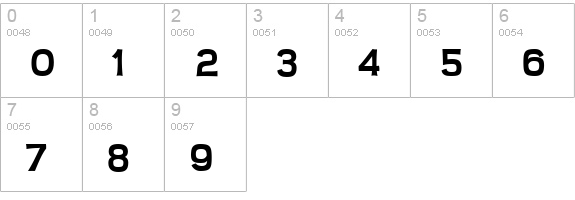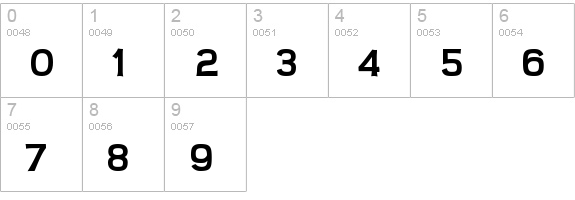
Teen Bold is a strong, high-contrast variant in the Teen typeface family \xE2\x80\x94 well suited to headlines, attention-grabbing titles, and strong calls-to-action.
Introducing Teen Bold, a font that exudes confidence, style, and a touch of rebellion. This rebellious font is perfect for all the teenagers out there who want to make a bold statement with their design projects. With its strong and edgy letterforms, Teen Bold captures the spirit of youth and individuality. What makes Teen Bold even more exciting is that it is not only visually striking but also freely available to download. That's right, you heard it correctly – this captivating font can be yours without spending a dime. Thanks to FontsMarket.com, you can unleash your creativity and add a rebellious touch to your designs with ease. Whether you're working on a poster, flyer, logo, or any other design project, Teen Bold will instantly grab attention and leave a lasting impression. Its sleek lines and distinctive curves bring an element of excitement and energy to any layout. Let your typography speak volumes and convey your unique personality with the help of this dynamic font. Teen Bold is not just any font – it's a statement. It represents the fearless spirit of teenagers who are unafraid to challenge the status quo and break free from conventions. So, go ahead and download Teen Bold from FontsMarket.com today, and let your creativity run wild with this freely available font. Stand out from the crowd, make a statement, and embrace your individuality with Teen Bold.